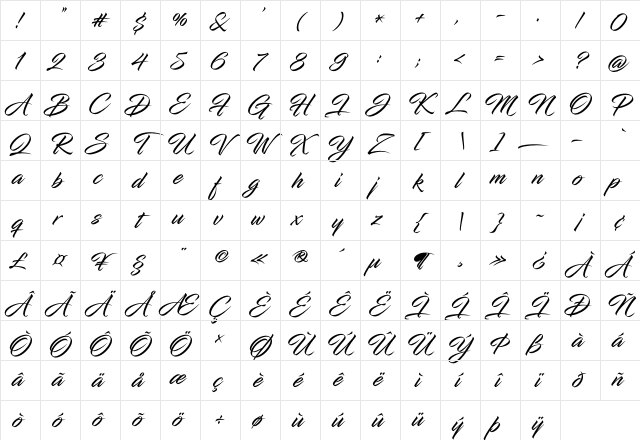
Infinite Stroke Condensed Free Font
Infinite Stroke Condensed
Foundry: Youssef Habchi
Designer: Youssef Habchi
Design Context for Infinite Stroke
Infinite Stroke is a composed and adaptable typeface that performs quietly and consistently across a wide range of design contexts. Its narrow stance lets it pack a punch even in space-constrained designs.
Who designed the Infinite Stroke Condensed font?